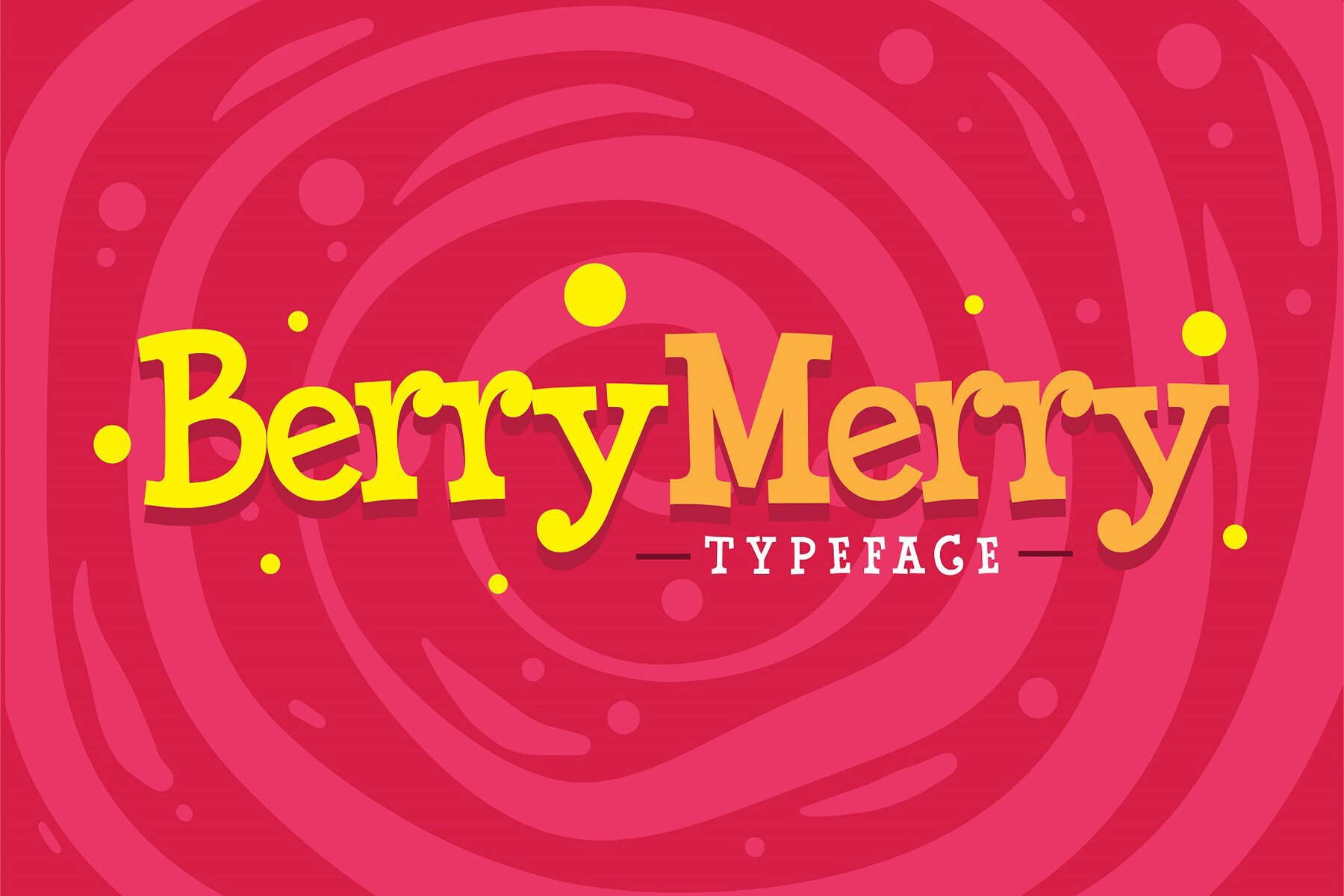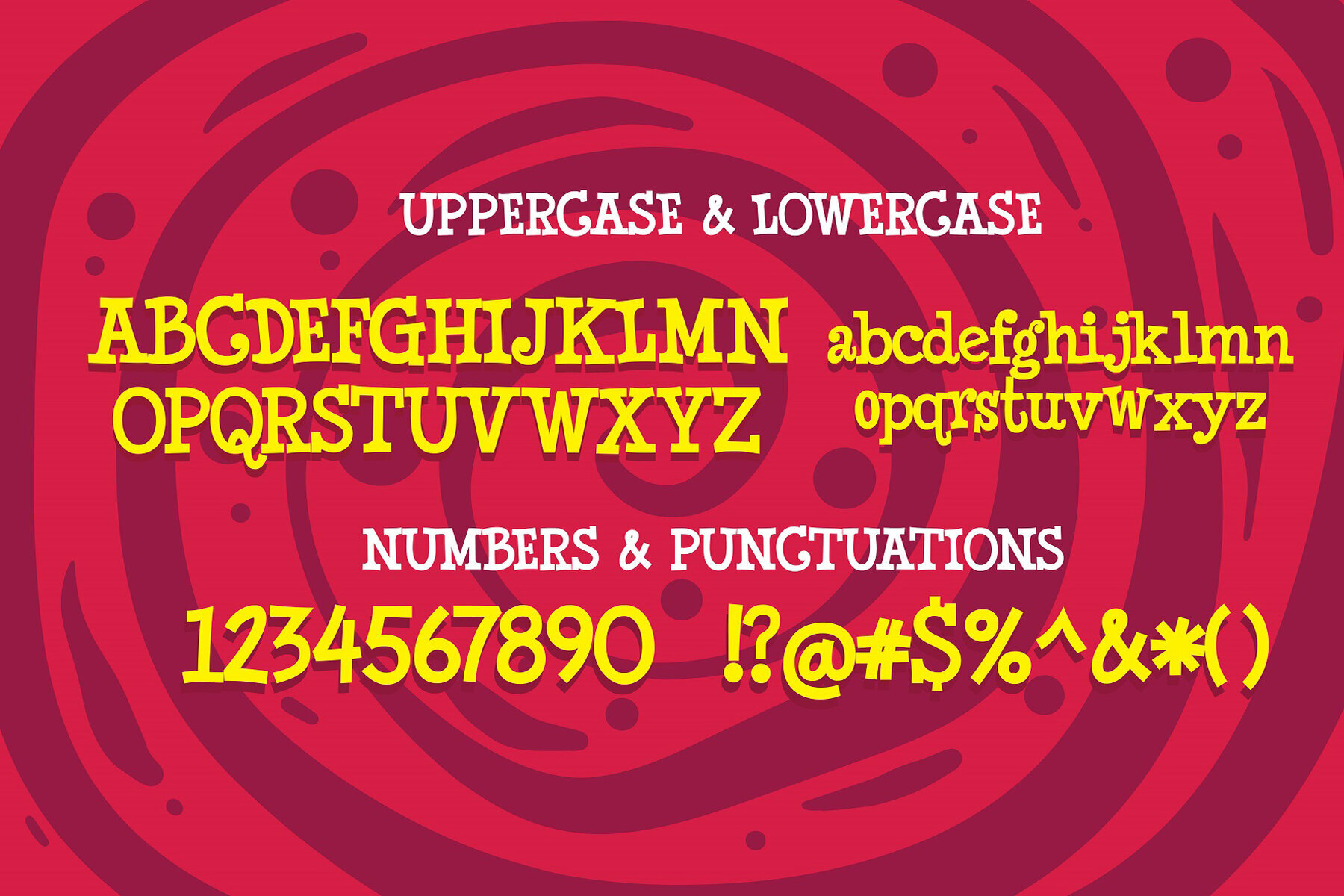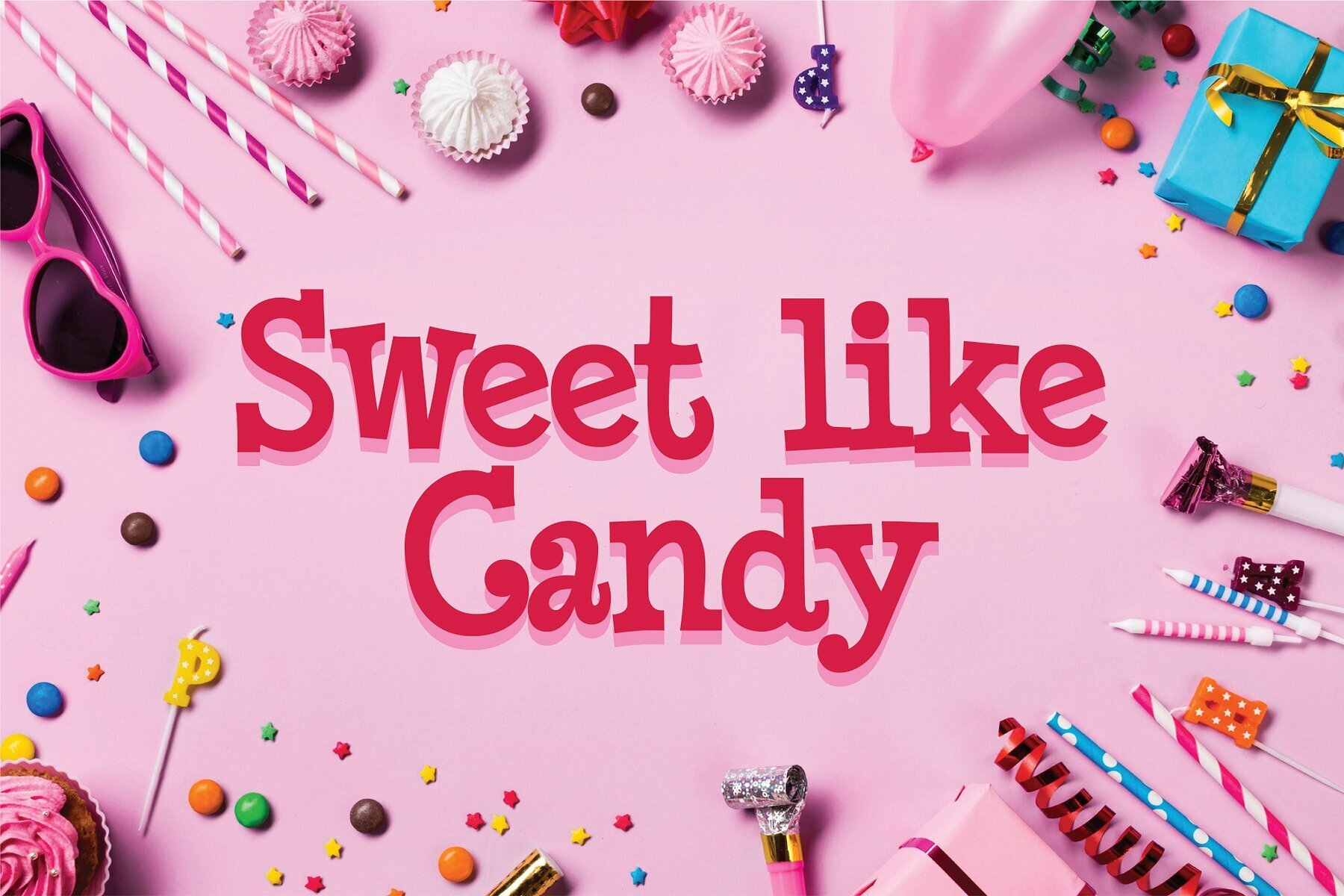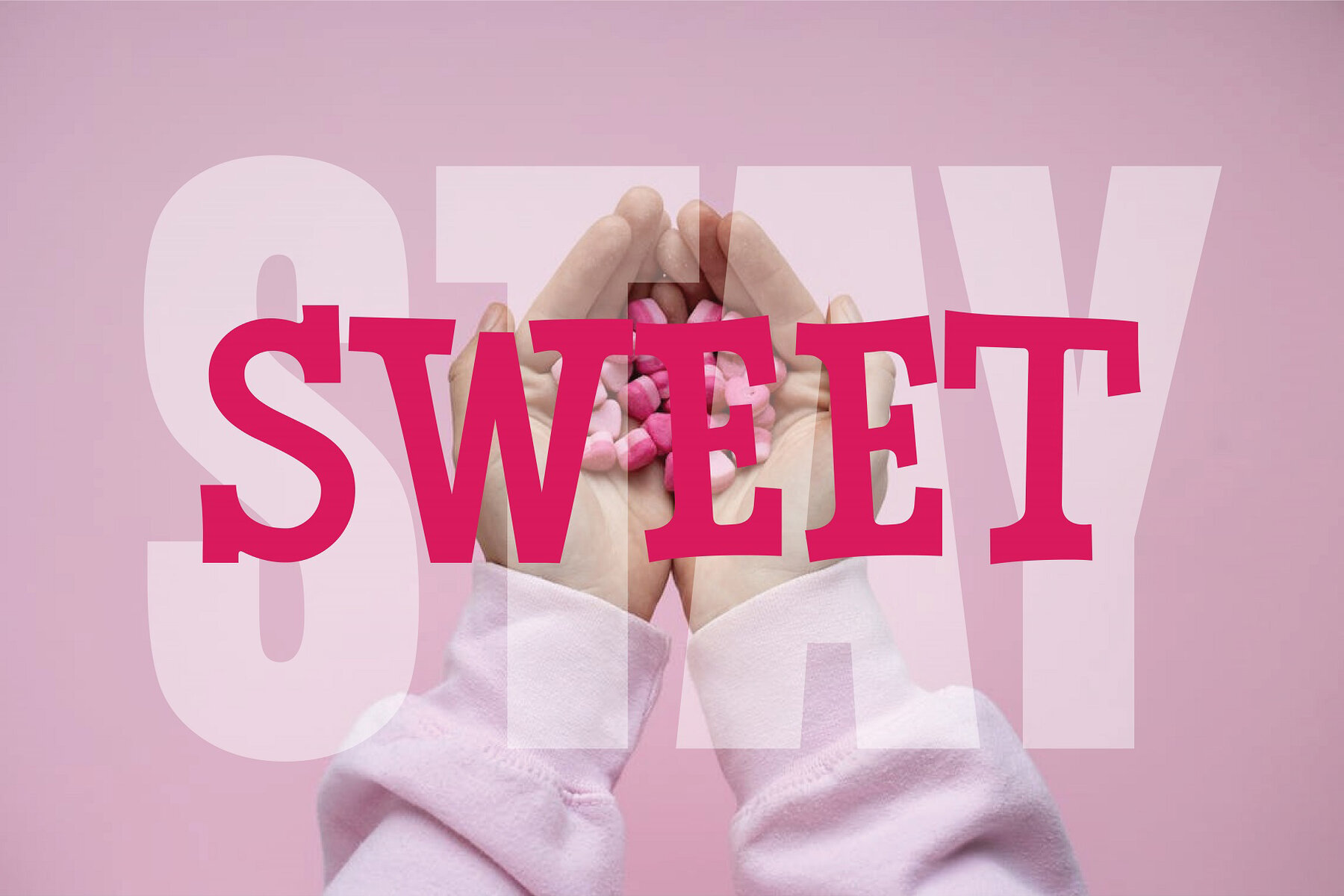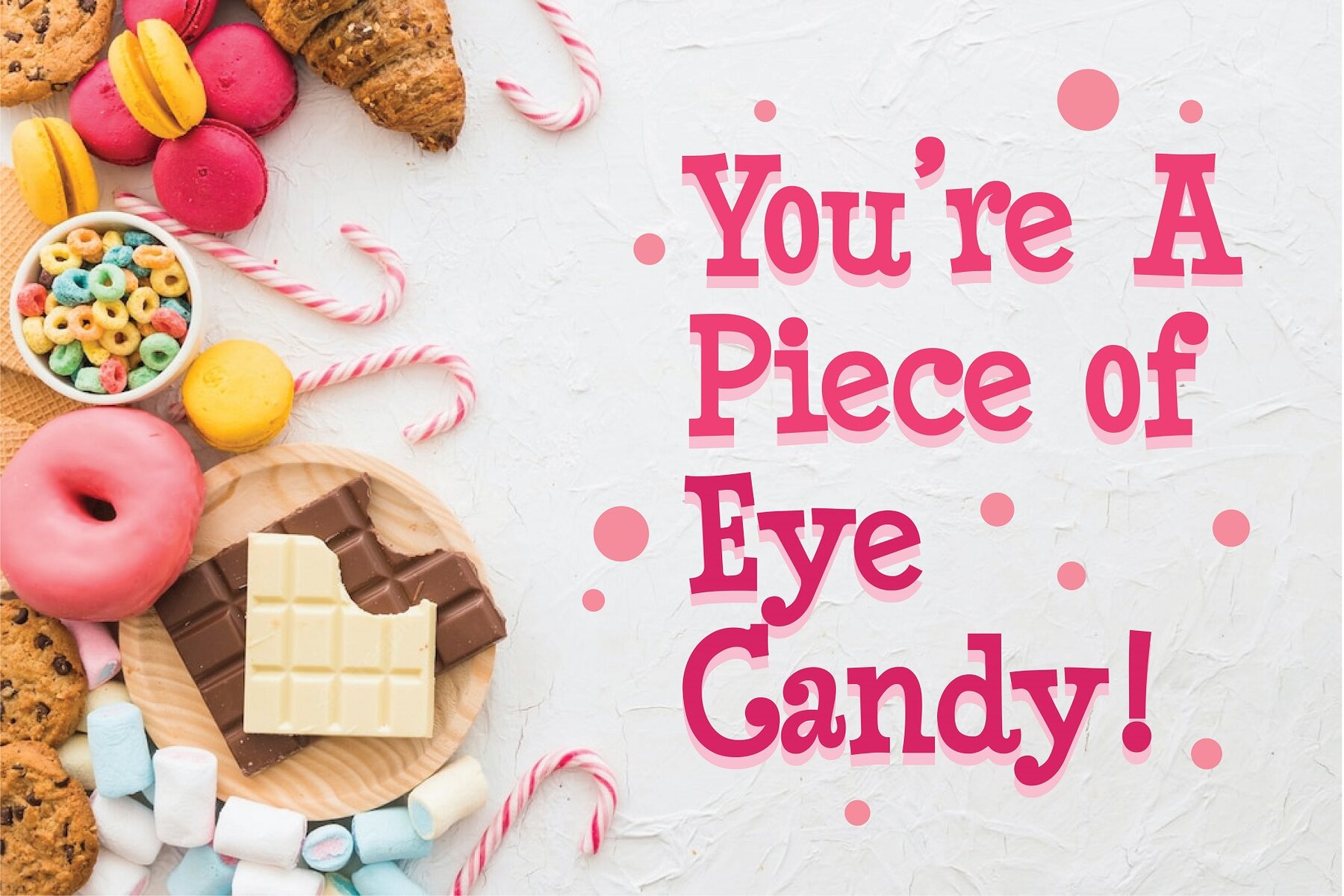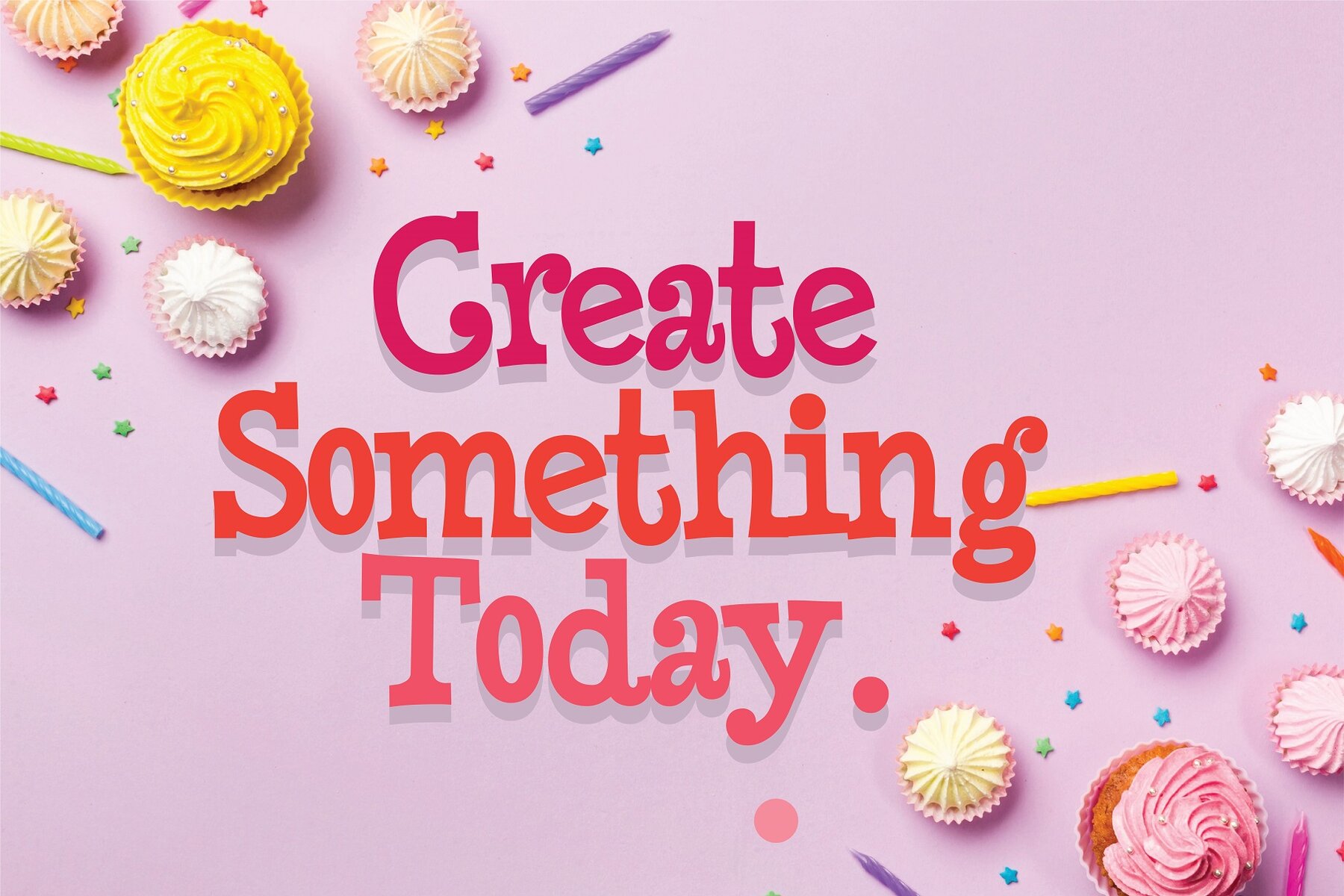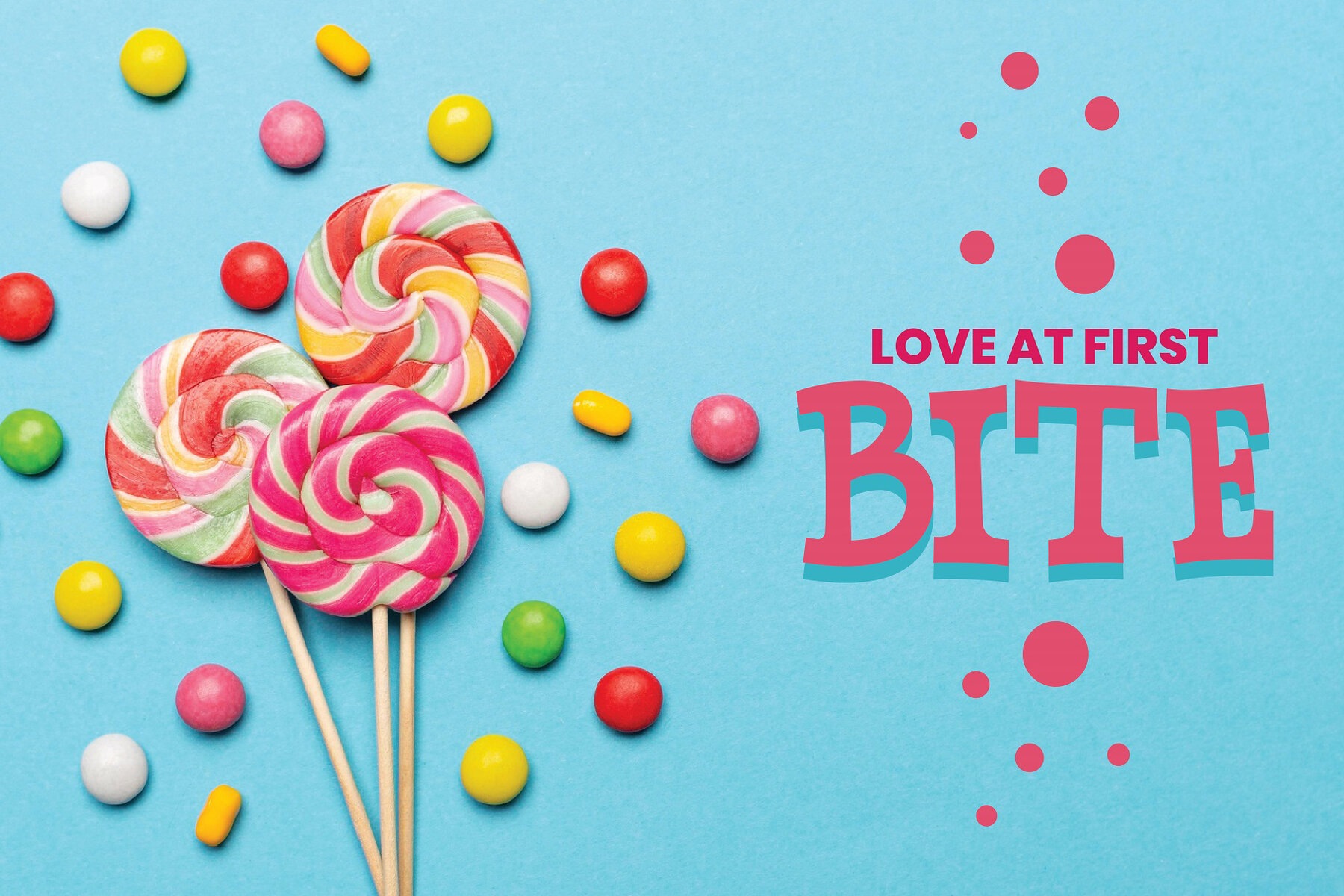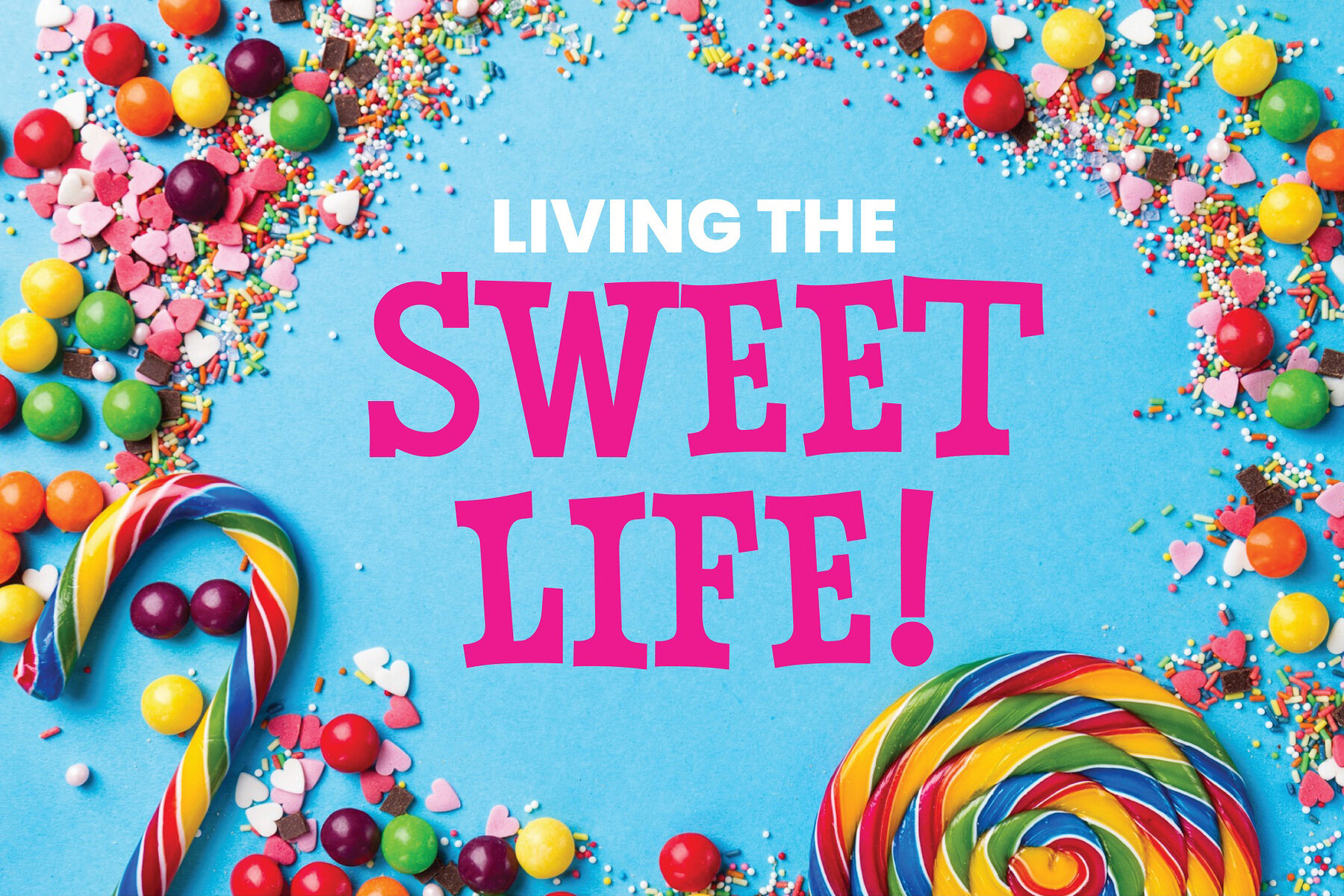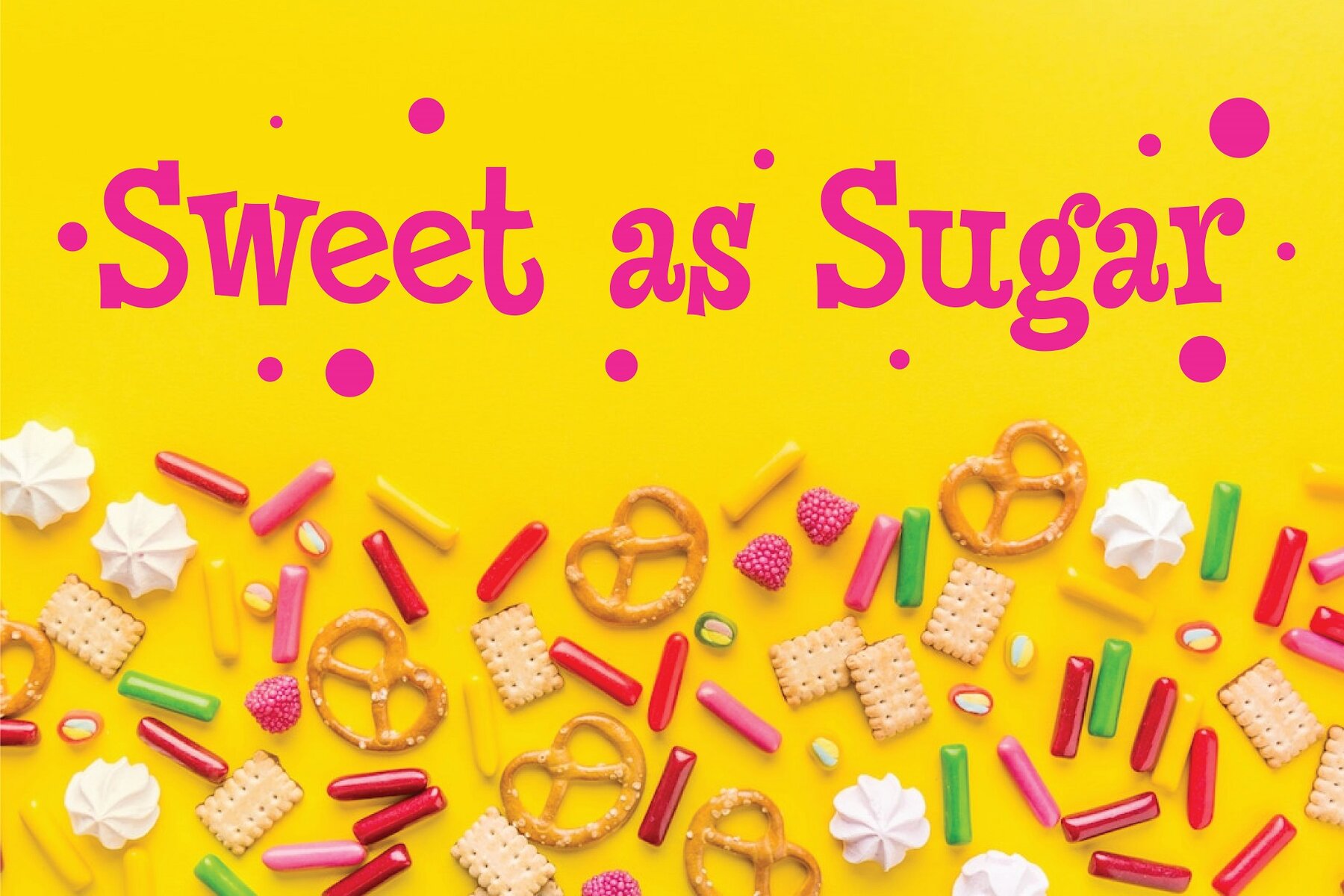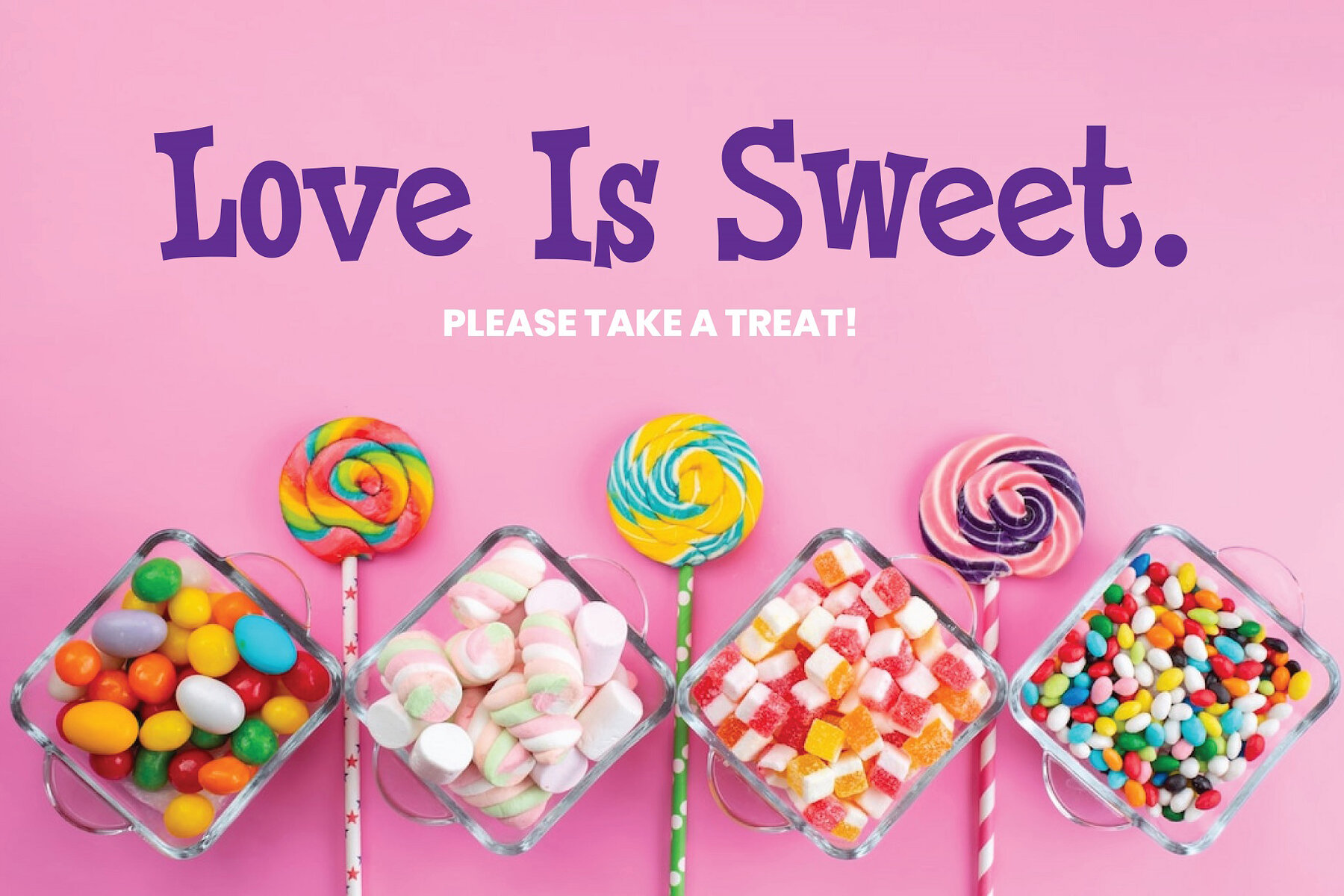
Berry Merry Font
Berry Merry Regular
BerryMerry is a playful retro serif font with mid-century inspiration, effortlessly adaptable to modern contexts. This quirky display font is ideal for creating beautiful headers, social media graphics, cozy event posters, birthday cards, magazines, packaging, and branding projects. Its charming and nostalgic style adds a unique touch to various design elements, making it versatile for multiple creative pursuits.
Designed with kids' products in mind, BerryMerry brings a fun and energetic vibe to any project. Its distinctive personality shines through in designs aimed at young audiences, ensuring that your work stands out. Whether you’re crafting invitations, posters, or digital graphics, BerryMerry’s whimsical and timeless feel makes it a perfect choice for a variety of creative applications.